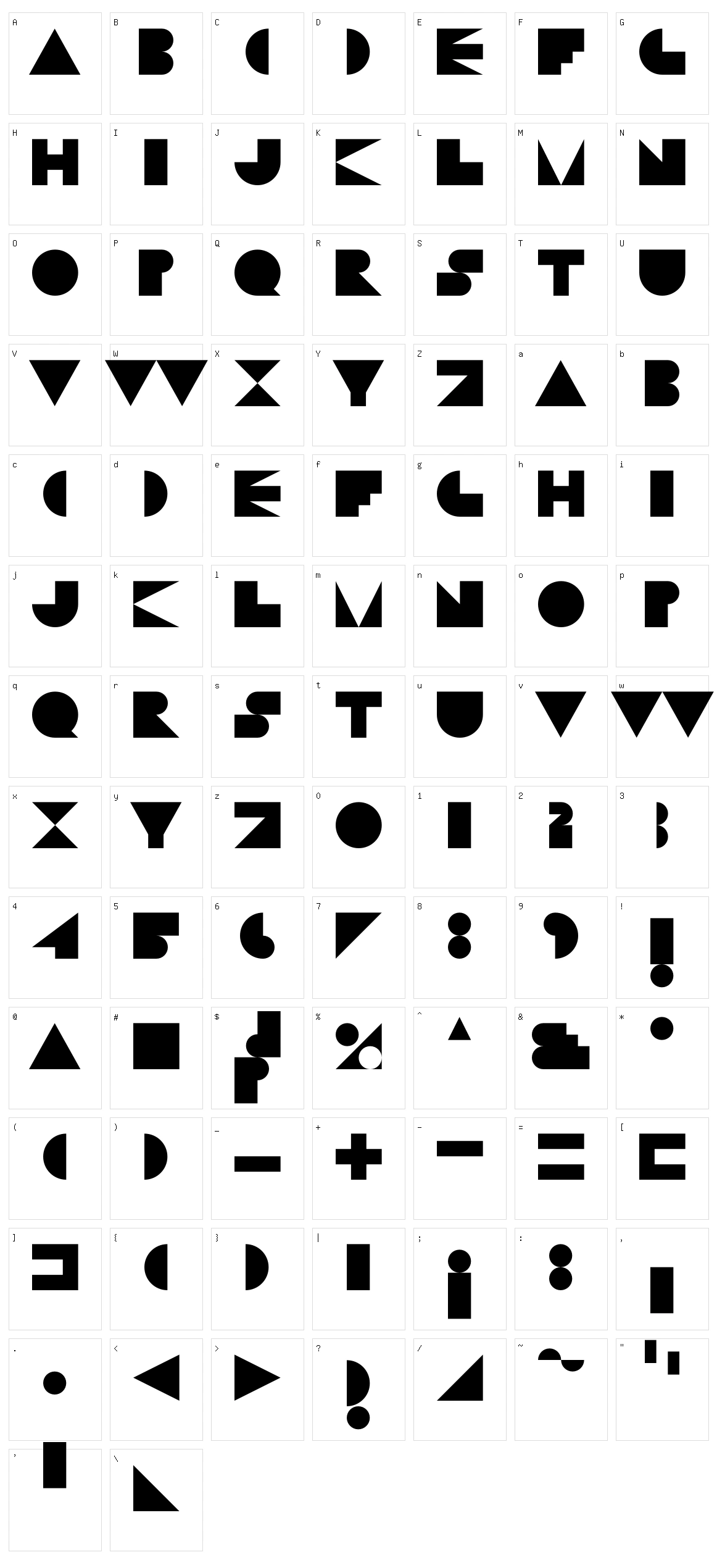
Sentrix is an extreme geometric typeface.
Built only with strictly mathematical shapes, this sci-fi font has a futuristic, techno and minimalistic appearance. It will give an arty but technological look to your graphic project.
The font supports all European Latin-based languages and contains all symbols, characters, punctuation and numbers.